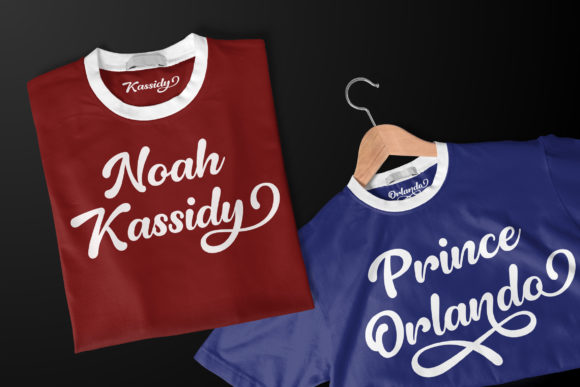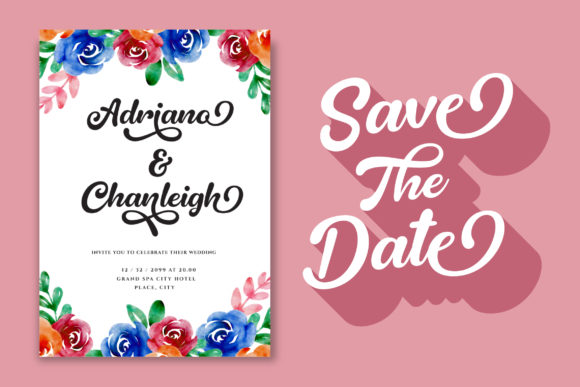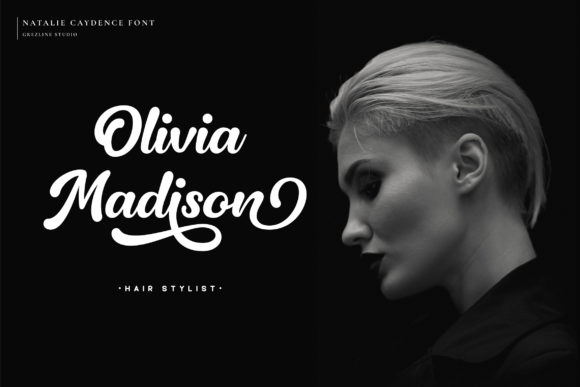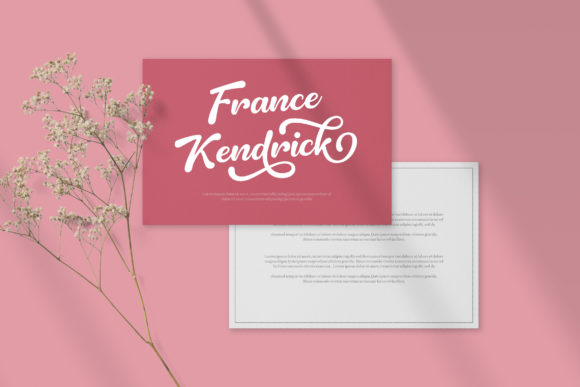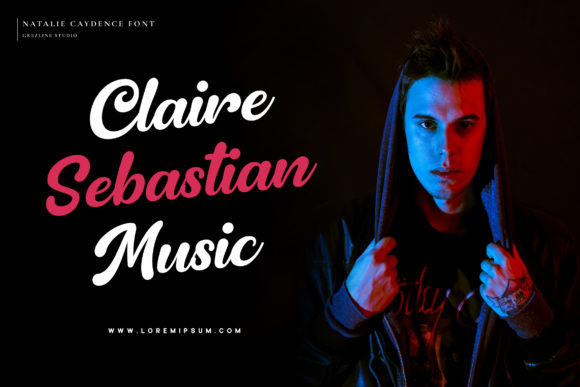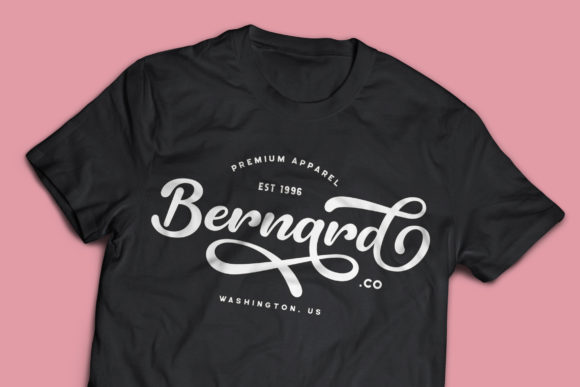
Introduction to Natalie Caydence Font
As designers, we’ve all been there – staring at a blank page, trying to bring our creative vision to life. But sometimes, all it takes is the perfect font to spark inspiration. For me, that moment came when I stumbled upon the Natalie Caydence Font. Its delicate, handwritten script seemed to dance across the page, begging to be used on everything from wedding invitations to logos.
As a valuable design resource, the Natalie Caydence Font offers a level of elegance and sophistication that’s hard to find in other fonts. Its high-quality design makes it perfect for a variety of creative projects, from greeting cards to business cards. Plus, its transparent background makes it easy to use with any design element.
Whether you’re a seasoned designer or just starting out, the Natalie Caydence Font is a must-have in your design arsenal. In this article, we’ll explore the beauty and versatility of this timeless font, and how you can use it to take your designs to the next level.
Natalie Caydence Font
- Unique, elegant script font with a transparent background for seamless integration
- Includes multiple font weights and styles for added versatility
- Perfect for designers and artists looking for a high-quality, free design resource
Honest Review: Natalie Caydence Font
I recently stumbled upon the Natalie Caydence Font, and I must say, it’s a beautiful addition to any design project. The high-quality font is perfect for creating visually appealing graphics and text.
What works well: ✨ The font is incredibly versatile, suitable for a wide range of creative projects, from wedding invitations to business logos. The font’s elegant and modern design makes it an excellent choice for any design resource. The transparent background feature allows for easy integration with various design elements.
However, there are a few limitations to consider: ⚠️ The font may not be suitable for bold or dramatic text, as it can appear somewhat delicate. Additionally, the font’s complexity may make it challenging to edit or customize.
Overall, I’m impressed with the Natalie Caydence Font. It’s a valuable design resource that can elevate any creative project. While it may have some limitations, its unique design and high-quality features make it a worthwhile addition to any designer’s toolkit.
Natalie Caydence Font
The Natalie Caydence Font is a high-quality design resource perfect for any creative project. This elegant script font features a transparent background, making it easy to use in various applications.
To get the most out of the Natalie Caydence Font, use it for headings and titles in your design. You can also use it for quotes and other design elements that require a elegant touch.
The Natalie Caydence Font is perfect for wedding invitations, baby shower invitations, and other special occasion invitations. It’s also great for creating a beautiful and elegant title for your blog or website.